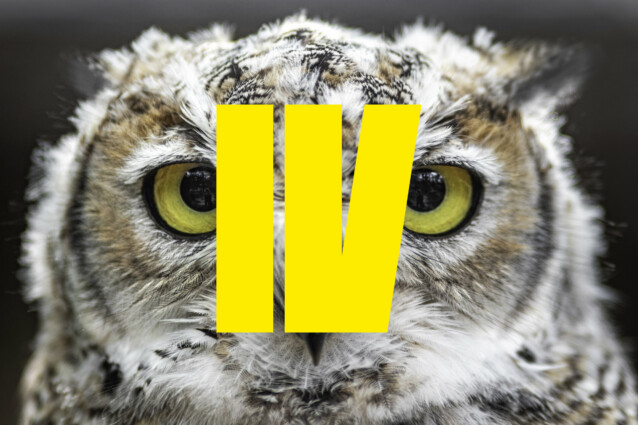
FUIXG Font is a futuristic race font. Whether you use it for designs related to race projects, FUIXG Font make the projects is relevant and more futuristic.